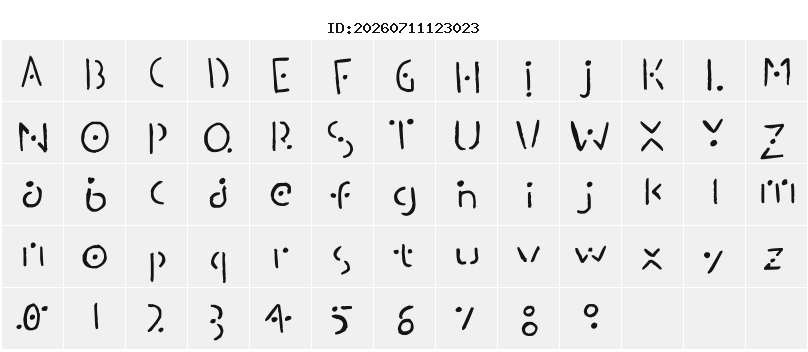
Martianesque Preview
• Font Name: Martianesque
• Full Font Name: Martianesque
About Martianesque.ttf
Martianesque.ttf is a modern, elegant sans-serif font designed for ultimate readability and visual harmony. Perfect for branding, headlines, web design, and print materials.